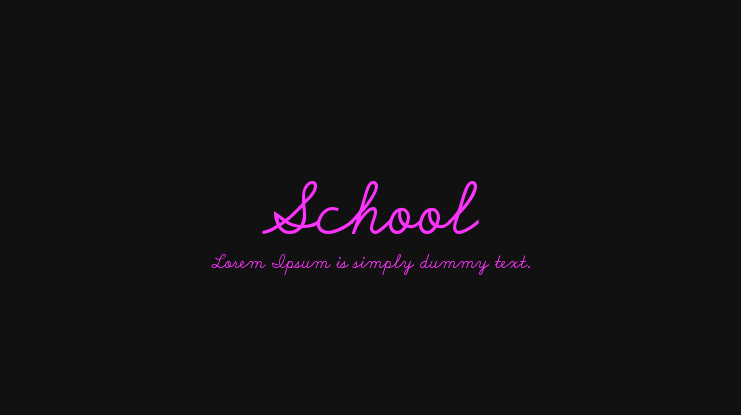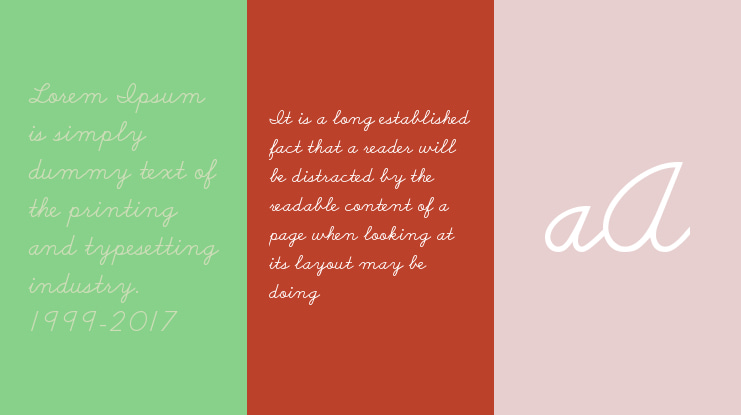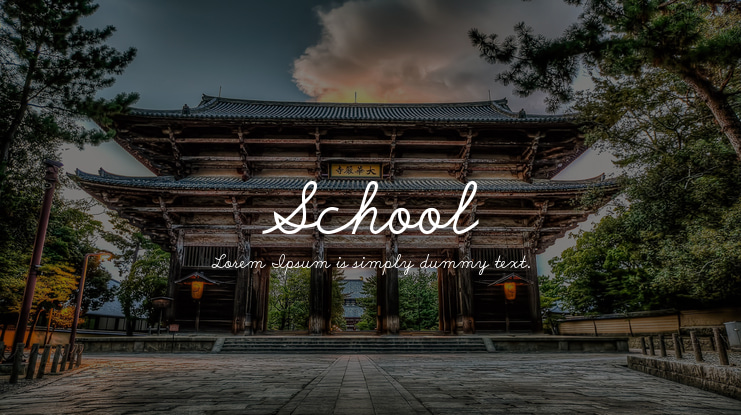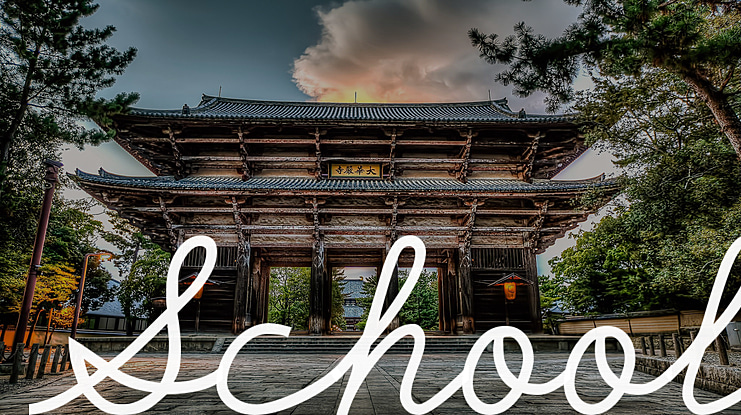
The School font family is a popular design based on a grade school alphabet. The School fonts allow teachers to create custom hand-lettered exercise sheets and classroom signage. Five variations are available. The plain style and its corresponding bold will create hand-lettered stand-alone text. The lined style and its corresponding bold superimposes a set of three guidelines on the plain style. A dashed style is also provided in case a teacher prefers the centerline to be dashed instead of solid.